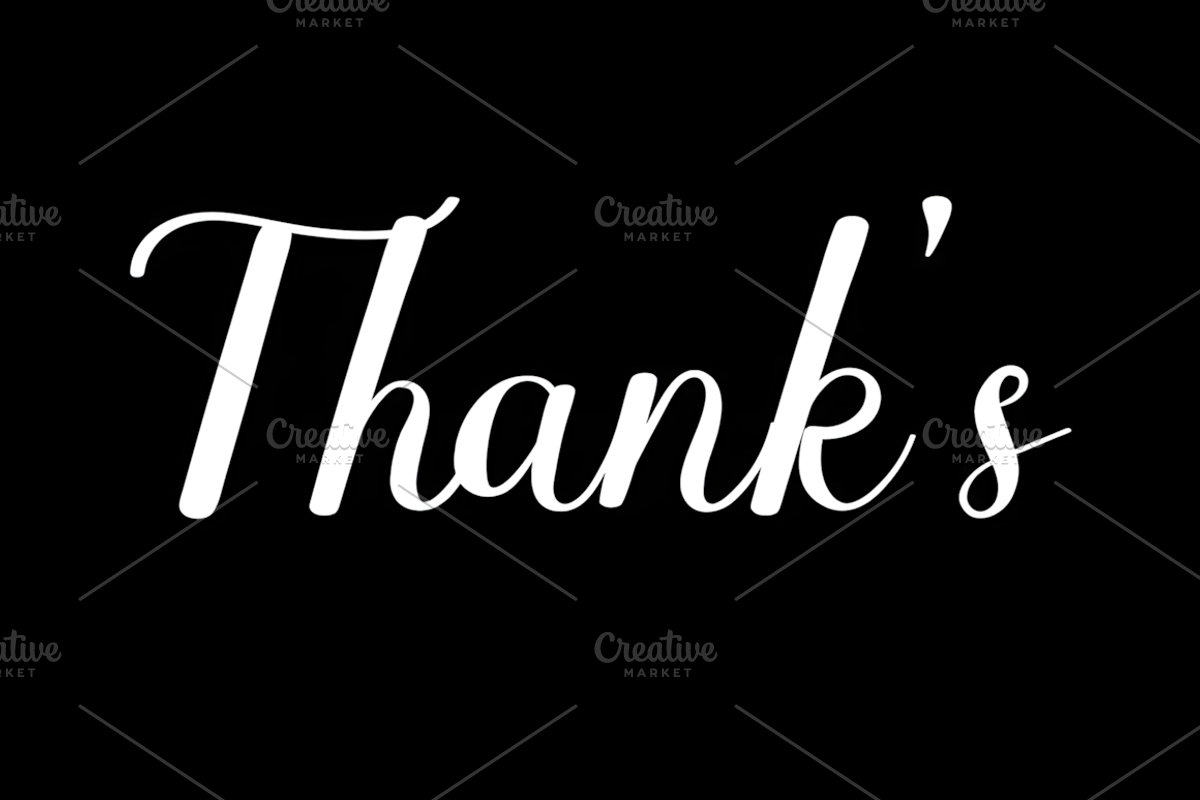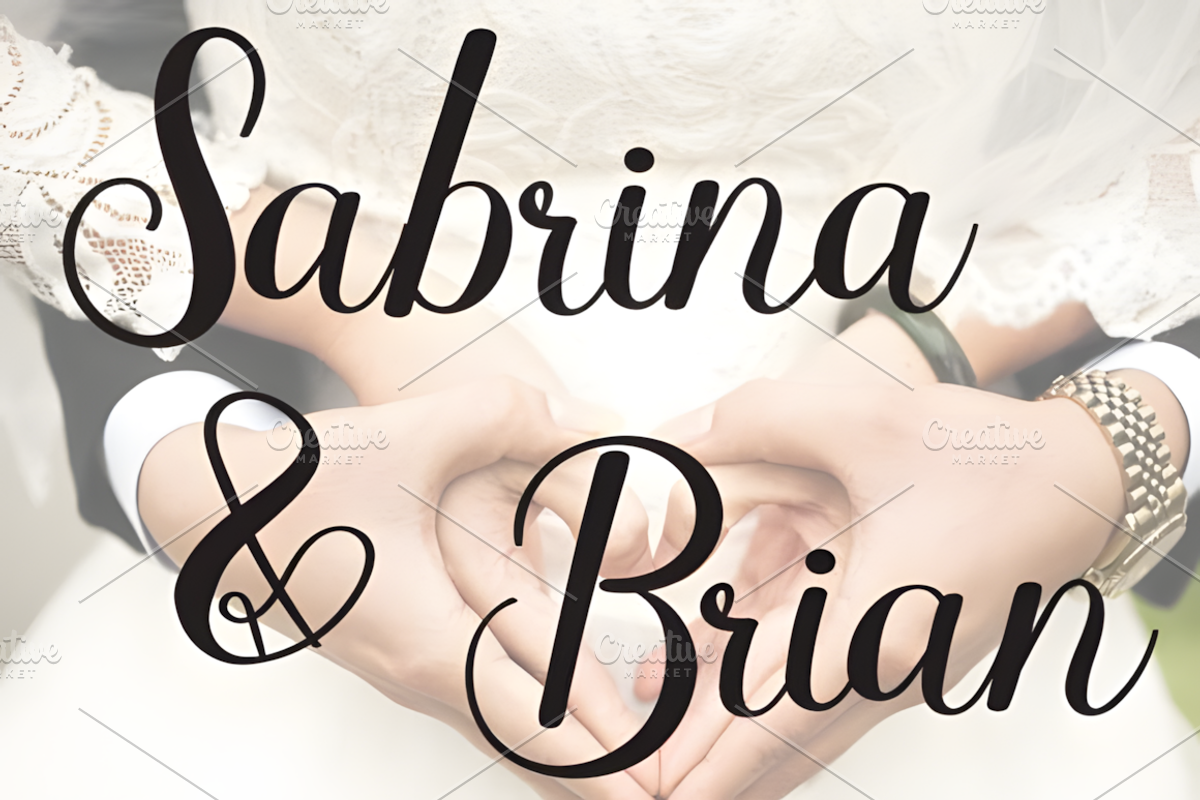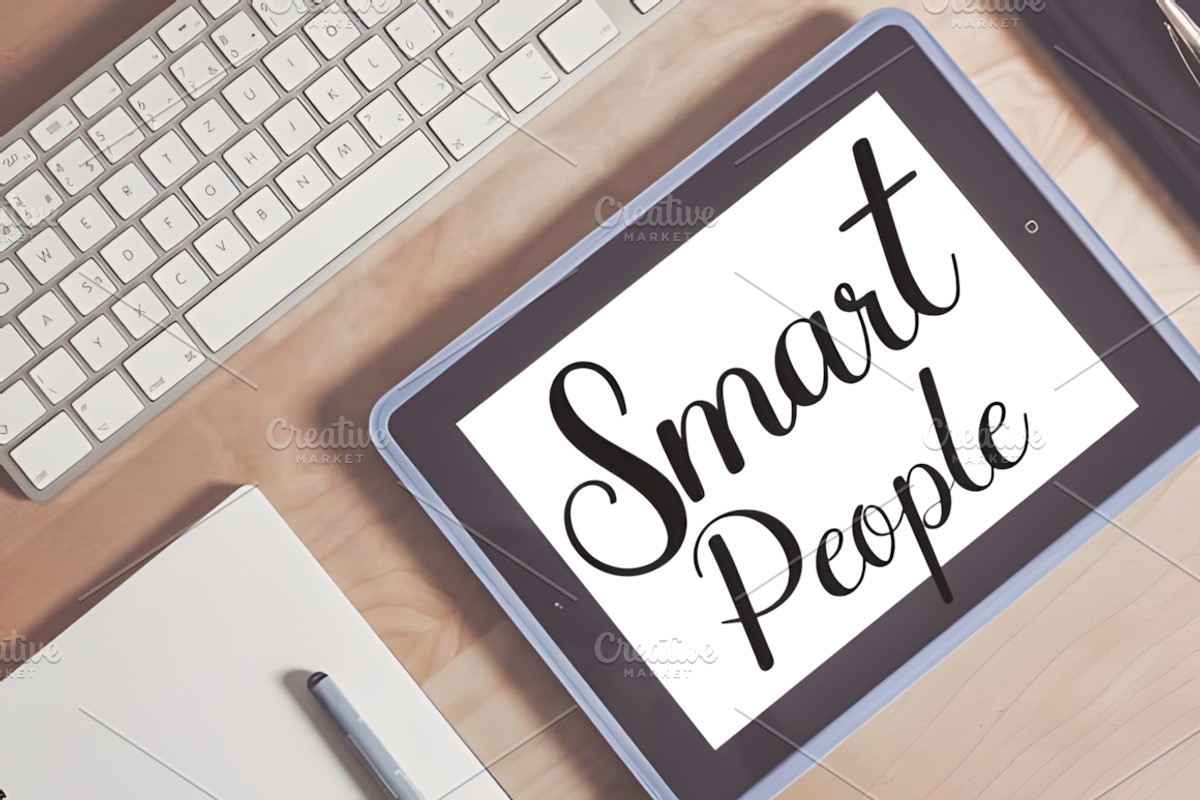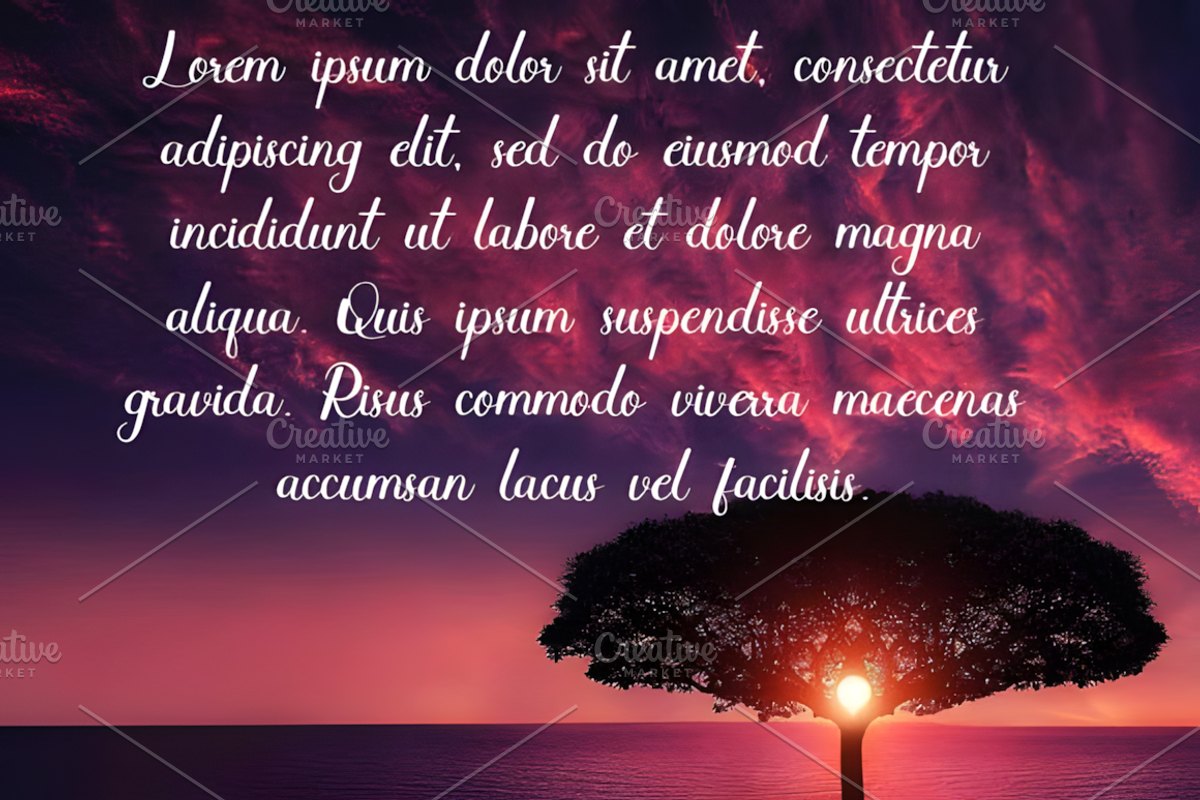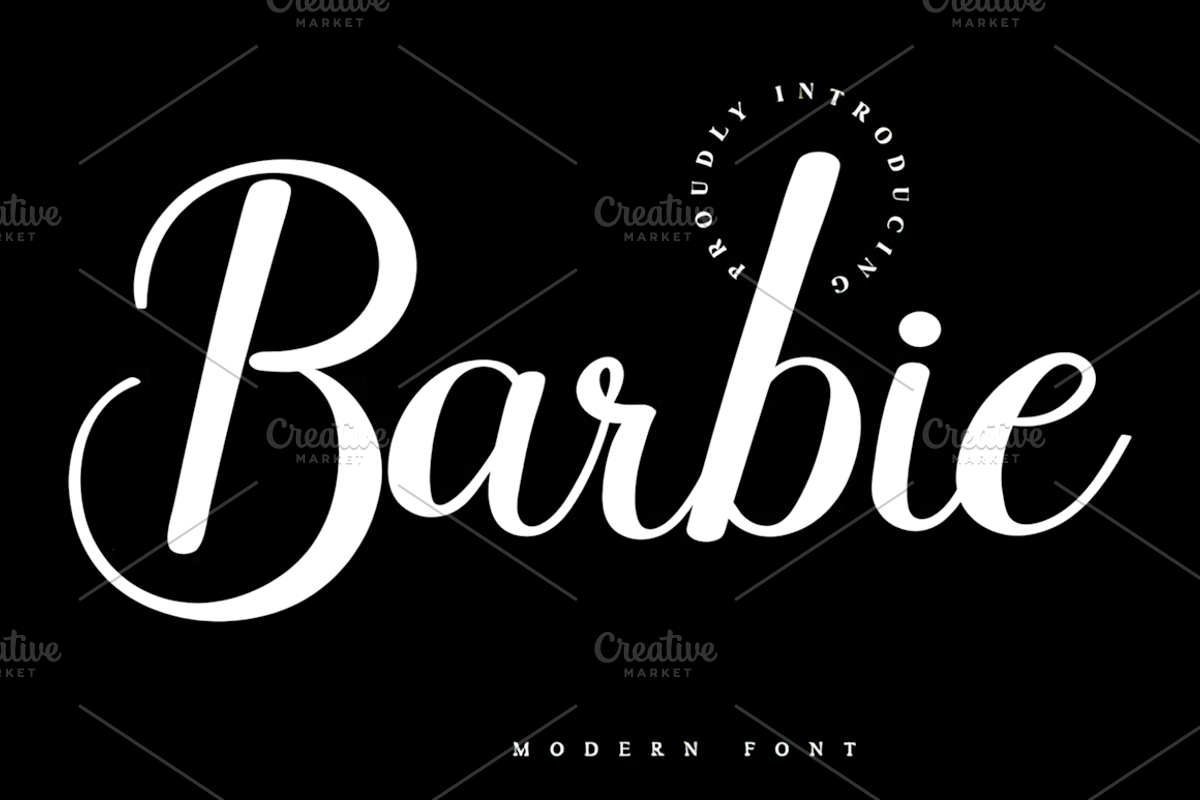
Barbie Font
Barbie is a charming and elegant handwritten font that adds a graceful, stylish touch to any creative project. Its smooth curves and beautifully crafted letterforms make it perfect for wedding invitations, thank you cards, greeting cards, quotes, logos, business cards, branding, packaging, social media graphics, and personalized gifts. Whether you're designing for a special occasion or creating a sophisticated brand identity, this versatile font delivers a warm and professional appearance. Suitable for both print and digital use, Barbie blends beauty with readability, making it an excellent choice for designers, crafters, and creative entrepreneurs who want their projects to leave a lasting impression.